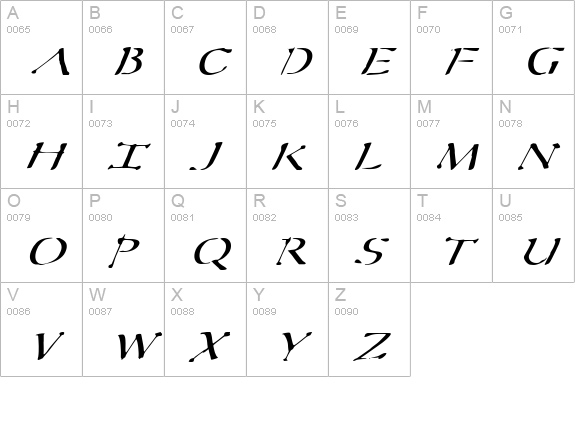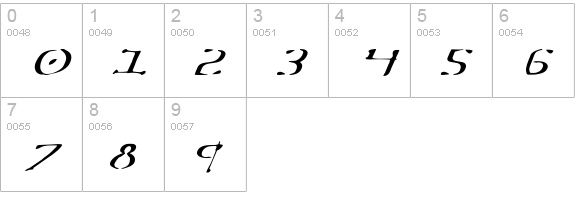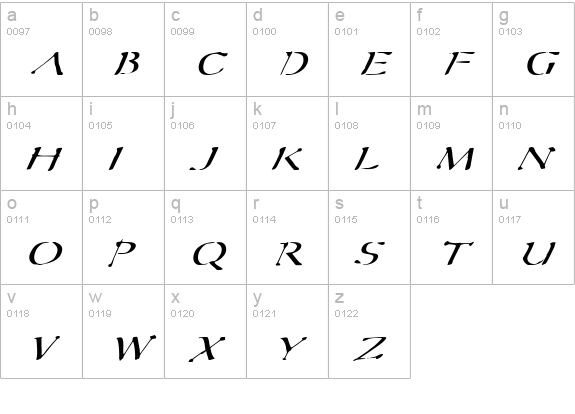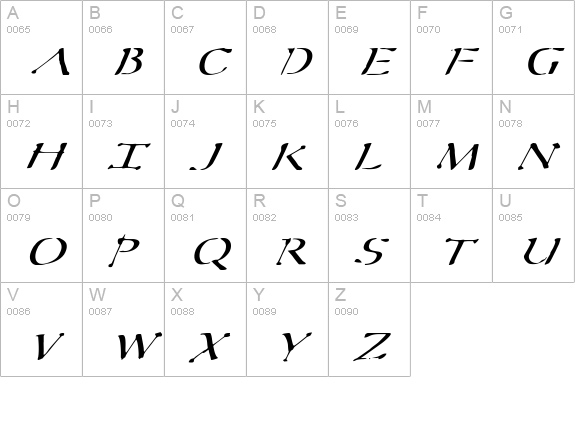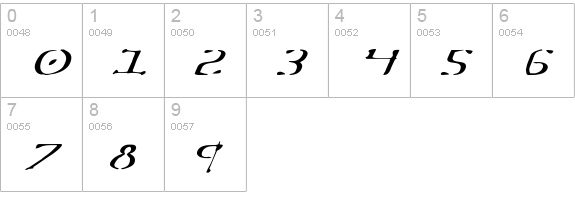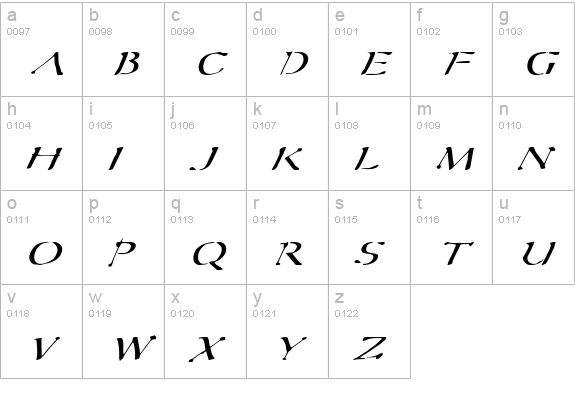
Sever Italic is a distinctive, italic variant in the Sever typeface family \xE2\x80\x94 well suited to design and typography projects.
Introducing Sever Italic, a striking and modern typeface that exudes elegance and versatility. Perfectly marrying sleek lines with subtle curves, this font brings a sense of sophistication to any design project it graces. Sever Italic is crafted with meticulous attention to detail, resulting in a truly unique and captivating font that stands out from the crowd. Its italicized form adds a touch of dynamism and fluidity, making it perfect for conveying a sense of movement and energy in your designs. This font is not only visually stunning but also incredibly practical. Its legibility ensures that your message will be effortlessly communicated to your audience, whether it's in print or on a digital platform. From branding and advertising to editorial layouts and packaging, Sever Italic is a versatile choice that can adapt to any project's needs. And the best part? Sever Italic is available completely free! Yes, you read that right. You can freely download this font at FontsMarket.com, a trusted platform for high-quality fonts. This means that you can enhance your designs with this exceptional font without breaking the bank. So, why wait? Discover the endless possibilities that Sever Italic offers and elevate your design projects to new heights. With its captivating style and its availability as a free download at FontsMarket.com, there's no reason not to add this must-have font to your collection. Embrace the elegance and versatility of Sever Italic today and let your creativity soar.